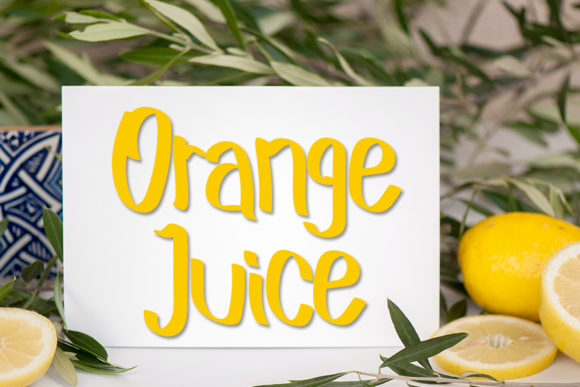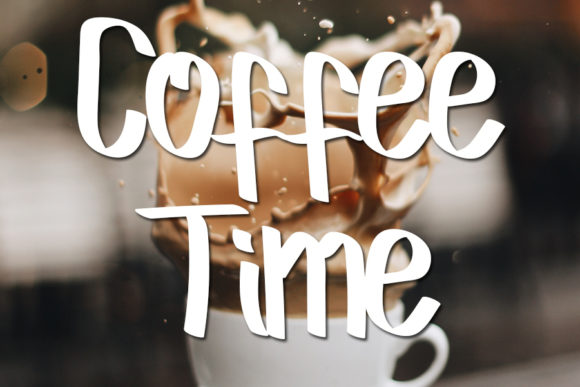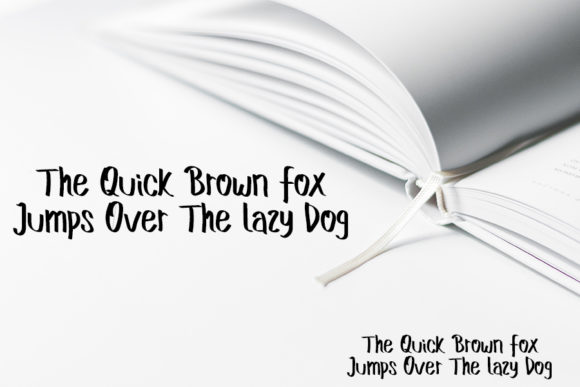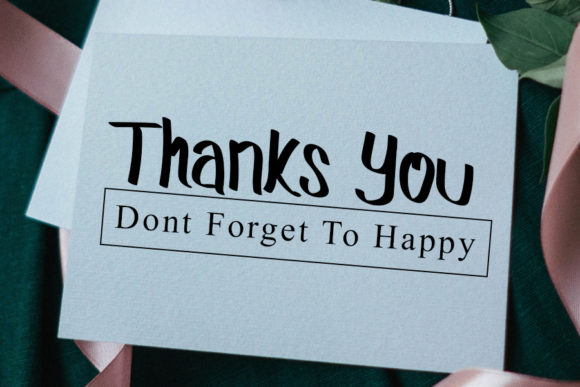
Introducing Allien Fly Font: Elevate Your Designs with a Modern and Flowing Handwritten Style
In the world of typography, fonts play a crucial role in conveying the tone and personality of a design. For designers and crafters looking to add a touch of elegance and friendliness to their projects, Allien Fly Font is an exceptional choice. This modern and flowing handwritten font is designed to bring a classic style to your designs while maintaining a warm and approachable feel.
What Makes Allien Fly Font Stand Out?
Allien Fly Font boasts an incredibly classic style that is reminiscent of traditional handwritten typography. Its flowing lines and curves create a sense of movement and fluidity, making it perfect for designs that require a touch of sophistication and elegance. At the same time, the font’s friendly feel ensures that it remains approachable and relatable, making it suitable for a wide range of design applications.
Allien Fly Font is the perfect choice for designers and crafters looking to create original and outstanding designs. Its versatility makes it suitable for various design projects, including:
- Logos and branding: Create a lasting impression with a unique and memorable logo that showcases your brand’s personality.
- Invitations and greeting cards: Add a touch of elegance and sophistication to your invitations and greeting cards.
- Posters and flyers: Create eye-catching posters and flyers that grab attention and convey your message effectively.
- Digital marketing materials: Elevate your digital marketing materials, such as social media graphics and email newsletters, with a professional and stylish font.
Key Features of Allien Fly Font
Here are some key features that make Allien Fly Font an exceptional choice for designers and crafters:
- Modern and flowing handwritten style: Adds a touch of elegance and sophistication to your designs.
- Classic style: Features an incredibly classic style that is reminiscent of traditional handwritten typography.
- Friendly feel: Maintains a warm and approachable feel, making it suitable for a wide range of design applications.
- Versatile: Suitable for various design projects, including logos, invitations, posters, and digital marketing materials.
Tips for Using Allien Fly Font Effectively
Here are some tips for using Allien Fly Font effectively in your designs:
- Pair it with other fonts: Combine Allien Fly Font with other fonts to create a unique and visually appealing typography.
- Use it for headings: Use Allien Fly Font for headings and titles to add a touch of elegance and sophistication.
- Experiment with colors: Experiment with different colors to find the perfect combination that complements your design.
In conclusion, Allien Fly Font is an exceptional choice for designers and crafters looking to add a touch of elegance and friendliness to their designs. Its modern and flowing handwritten style, classic style, and friendly feel make it perfect for creating original and outstanding designs. With its versatility and key features, Allien Fly Font is sure to elevate your designs and take them to the next level.